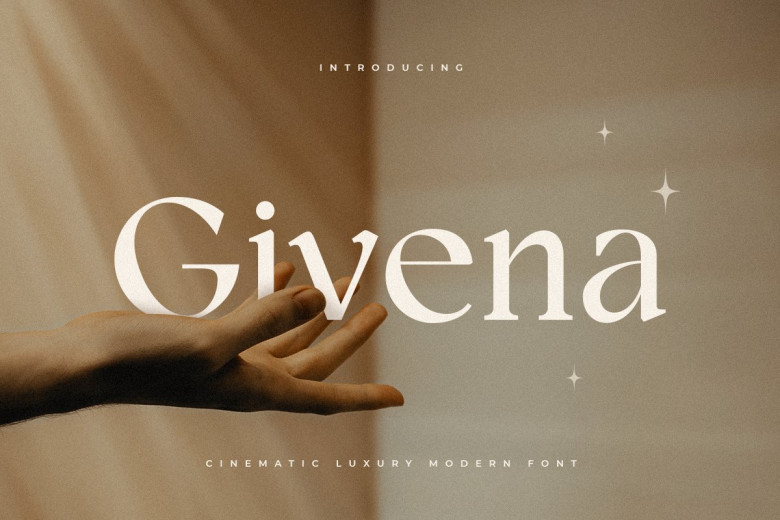
Givena Font
Givena Font, a Cinematic Luxury Modern Font, is a display font designed to meet luxurious, elegant and cinematic branding and logo requirements with an air of cool style. You can quickly mix different fonts to produce different shapes quickly by selecting appropriate fonts from its range – it has moderate contrast.
Ideal for branding purposes as well as logo designs for weddings and social media posts as well as advertisements, product packaging labels as well as design for products photos watermark invitations stationery projects and any other projects requiring readability, Givena Font guarantees high levels of readability when used correctly in such projects!
Givena Serif Font